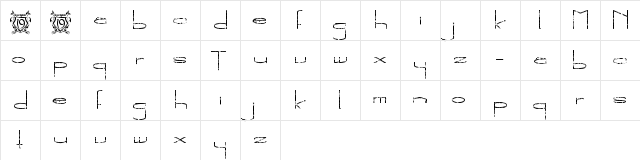
The New Metropolitan Regular
Design Context for The New Metropolitan Typeface
The New Metropolitan takes a measured approach to typography — its balanced proportions and neutral character make it a reliable workhorse for both digital and print work.